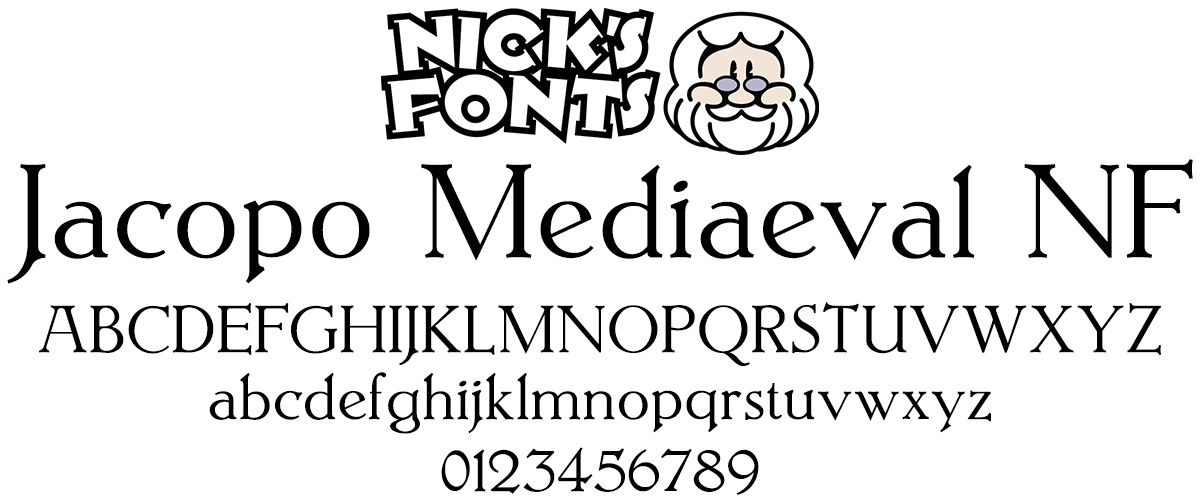
Jacopo Mediaeval NF Font
Jacopo Mediaeval NF Font is perfect for historical publications, medieval manuscript reproductions, classical literature editions, museum exhibition materials, renaissance festival branding, academic historical research, ancient document recreations, traditional calligraphy courses, heritage institution signage, and scholarly medieval studies.
Jacopo Mediaeval NF Font is exciting because it authentically recreates the magnificent artistry and scholarly elegance of medieval manuscript illumination, creating a typeface that embodies the wisdom, craftsmanship, and cultural richness of the Middle Ages. This font brings historical authenticity and scholarly gravitas to any project, making it ideal for educational institutions, museums, and cultural organizations that want to convey academic excellence, historical accuracy, and reverence for medieval heritage. Its classical character and manuscript-inspired details create an atmosphere of scholarly distinction that resonates with audiences who appreciate historical authenticity.
Jacopo Mediaeval NF Font family includes regular, bold, and ornamental variations, plus medieval flourishes, manuscript decorations, and period-appropriate ornaments, providing designers with comprehensive tools for creating authentic historical typography and scholarly medieval brand experiences.
This distinguished historical typeface combines authentic medieval design principles with contemporary functionality, making Jacopo Mediaeval NF Font Free Download an exceptional choice for projects requiring historical accuracy and scholarly credibility. The font's meticulously crafted letterforms feature manuscript proportions and medieval styling that honor the traditions of medieval scribes and illuminated manuscript artists.
Whether you're designing historical museum materials, academic medieval publications, or renaissance cultural events, Jacopo Mediaeval NF Font delivers unmatched historical authenticity and scholarly appeal. The font excels in both intimate academic applications and large-scale educational environments where medieval heritage and historical scholarship create transformative learning experiences.
Historical professionals choose Jacopo Mediaeval NF Font for its ability to instantly communicate scholarly authority and historical authenticity while maintaining excellent readability for contemporary audiences. The font's medieval character makes it particularly effective for universities, medieval studies programs, and cultural heritage institutions.
Each character reflects the masterful artistry of medieval scribes, featuring authentic manuscript styling and scholarly proportions that create typography as beautiful and authoritative as illuminated manuscripts and medieval codices.